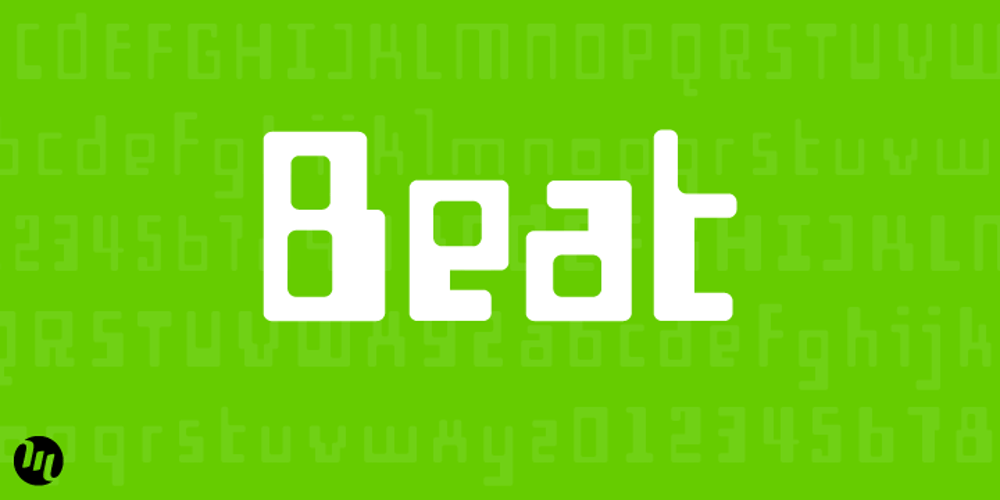
Beat
Beat font
Beat Font Family was designed by Matthew Aaron Desmond and published by MADType. Beat contains 4 styles and family package options. Beat is a quirky OCR-inspired face with a rounded, retro-electronic feel. All of the stem weights were drawn at random, but the ensuing chaos works amazingly well.